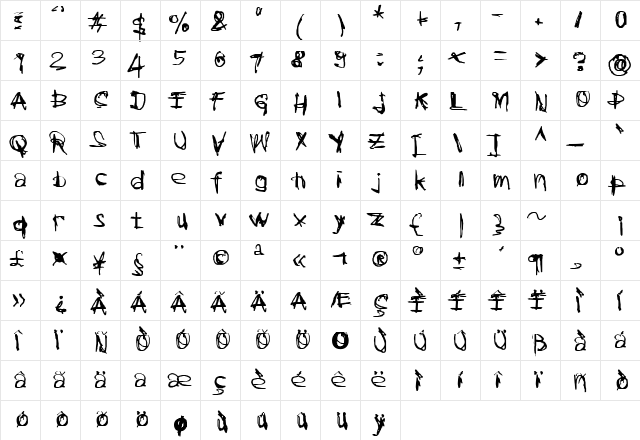
CoercionNaked Regular Font Preview
CoercionNaked Regular
Design Context for CoercionNaked Typeface
CoercionNaked is a composed and adaptable typeface that performs quietly and consistently across a wide range of design contexts.